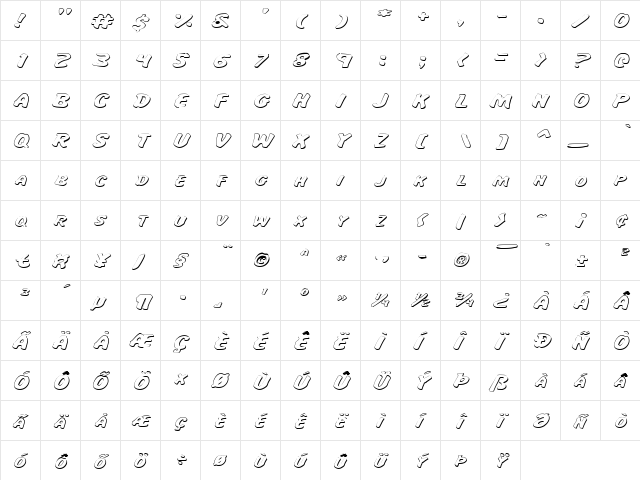
Miss Amanda Shadow ItalExp Font Preview
Miss Amanda Shadow ItalExp Shadow ItalExp
Design Context for Miss Amanda Shadow ItalExp Typeface
Miss Amanda Shadow ItalExp brings ornamental detail and strong personality to headlines and identities, where visual impact matters more than quiet functionality.
Font Pairing: Pair with a clean neutral sans-serif for body copy to let Miss Amanda Shadow ItalExp's character lead without overwhelming the composition.
Pro Tip: Use Miss Amanda Shadow ItalExp exclusively at display sizes — it was designed to be seen, not read at length. Let a neutral companion handle body copy.